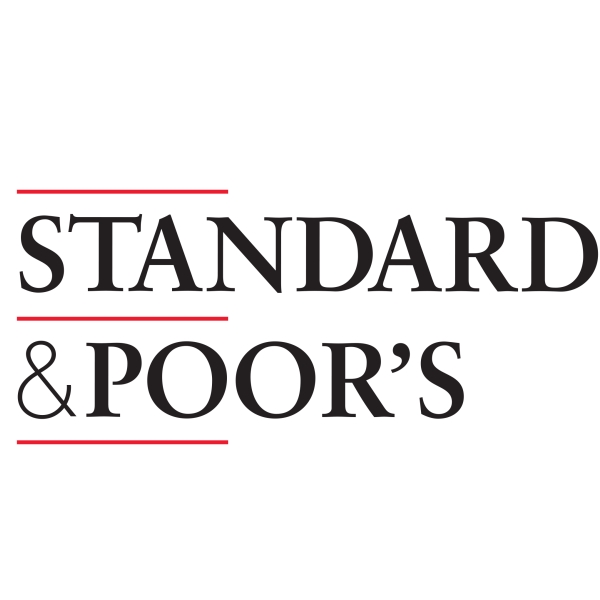
Standard & Poor’s Font
FinanceStandard & Poor’s is a financial services company that provides credit ratings, market intelligence, and indices for businesses and investors around the world.
The Standard & Poor’s logo is most likely created using Sabon Bold font, an old-style serif typeface created by Jan Tschichold in 1964 and released by Stempel, Linotype, and Monotype foundries. You can learn more about the font here.